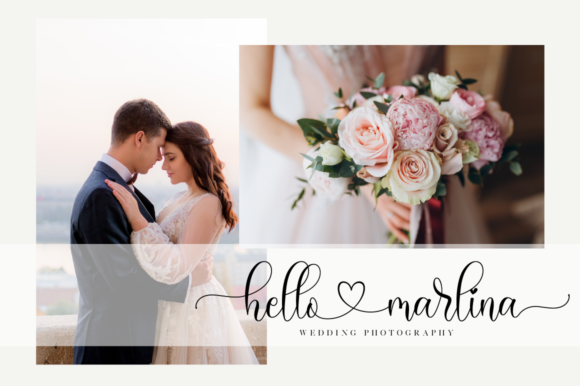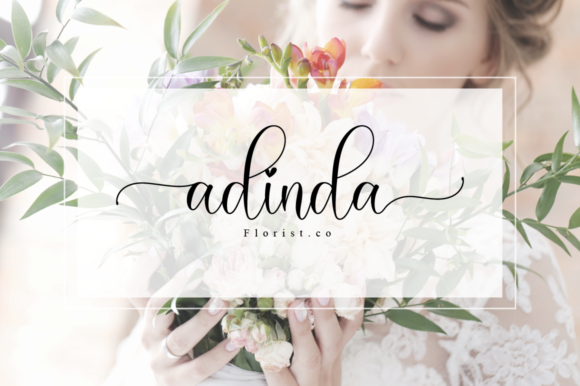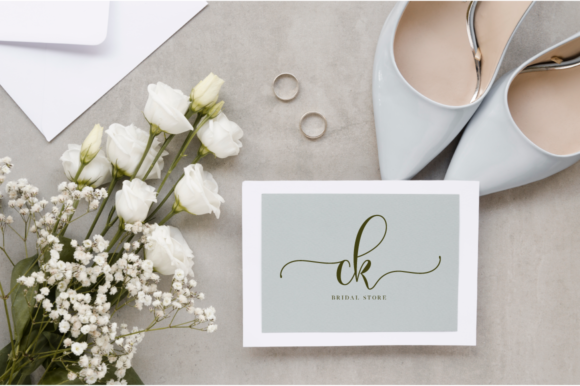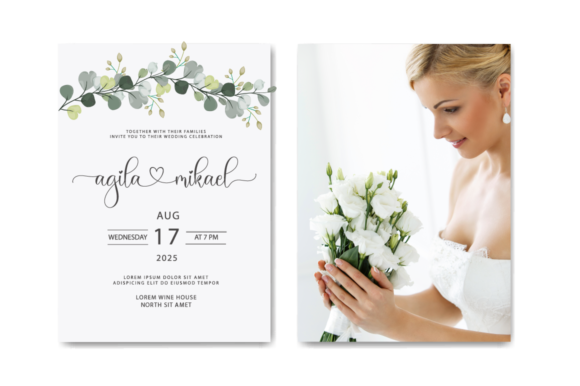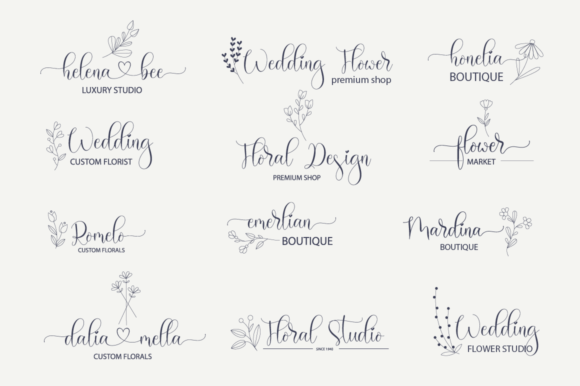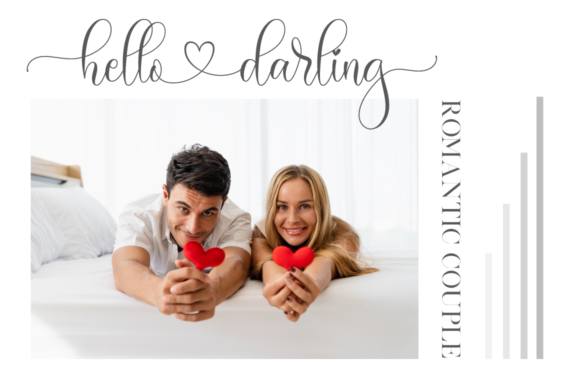
Introduction to Melina Verlin Font
Melina Verlin is a beautiful combination of timeless elegance and authentic calligraphy.
It features an incredibly classic style, while still keeping a friendly feel Melina Verlin is the perfect font for making original and outstanding designs for wedding invitations, beautiful stationary art, eye-catching social media posts, and cute greeting cards.